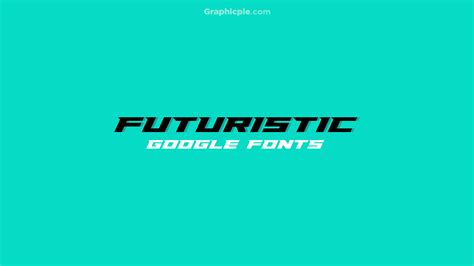
Web the best futuristic google fonts orbitron. Orbitron is one of the most popular futuristic google fonts! Web oxanium is a square, futuristic font family. It features four weights (light, medium, bold, and black),. It has sleek lines and.
Web the best futuristic google fonts orbitron. It has sleek lines and. It features four weights (light, medium, bold, and black),. Web oxanium is a square, futuristic font family. Web the best futuristic google fonts orbitron. Orbitron is one of the most popular futuristic google fonts!